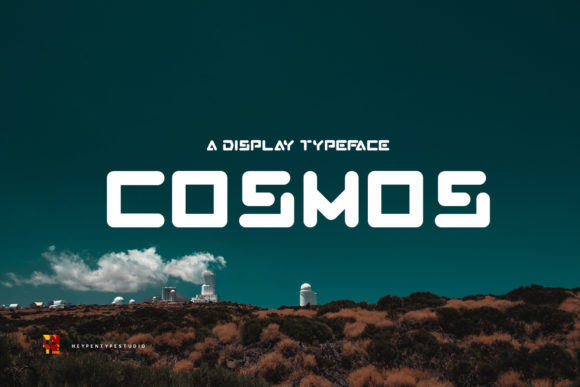
Unleash the Power of Cosmos Font: A Typographic Masterpiece for Unforgettable Designs
In the realm of digital artistry, where creativity knows no bounds, there exists a font that transcends the ordinary—Cosmos Font, the crown jewel of the display font family, meticulously crafted by heypentype. Behold the geometric and techno brilliance of Cosmos, a font specifically designed to elevate your designs to new heights.
Prepare to be mesmerized by the striking visual impact of this font. Its sharp edges and clean lines exude a futuristic allure, captivating the eyes of all who behold it. Cosmos Font is the key to unlocking a world of design possibilities, limited only by the boundaries of your imagination.
Visualize your designs transformed by the presence of Cosmos Font. Its meticulously crafted structure ensures that each letter, each word, and each sentence carries an air of sophistication and modernity. Whether you seek to grace your posters with bold statements, elevate your flyers with a touch of elegance, or imbue your printed materials with a touch of distinction, Cosmos Font is your ultimate companion.
Take the first step towards typographic greatness. Embrace Cosmos Font and let your designs shine brighter than ever before. Its endless possibilities await your creative touch, inviting you to explore a realm where imagination and typography intertwine seamlessly.